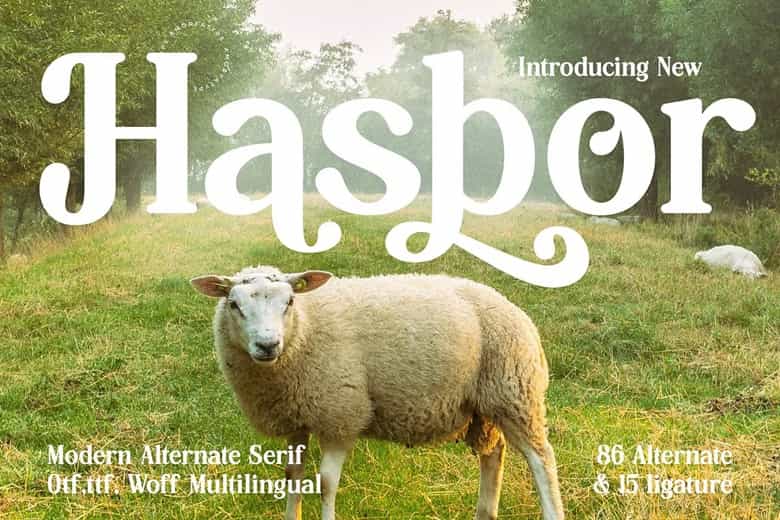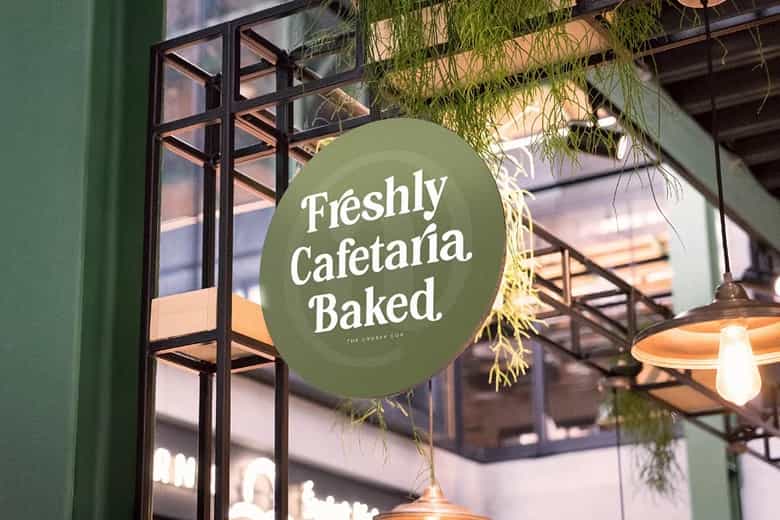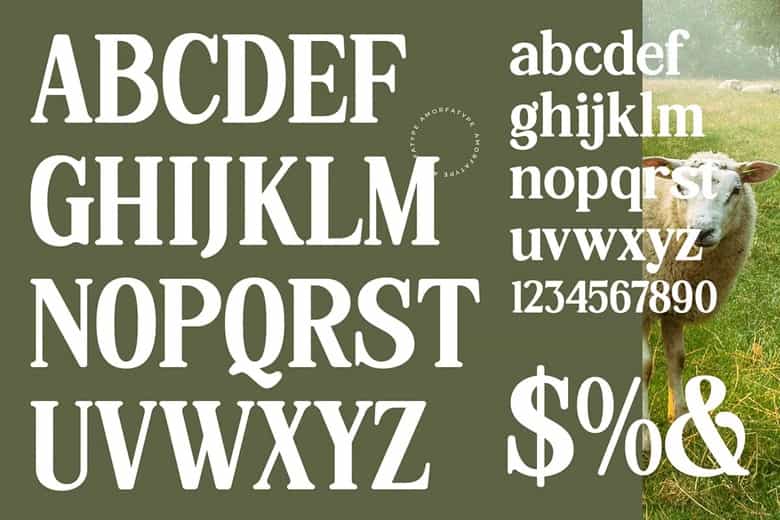
Hasbor is an alternate serif font that is modern and daring in design and brings new meaning to sophistication. With minimalist and modern serifs and classic but elegant alternates, this font is perfect for virtually any design project. The contrast between the thickness of the lines as well as the detailed design areas of Hasbor offer the brand a professional and elegant look that matches traditional roots with new age creativity.